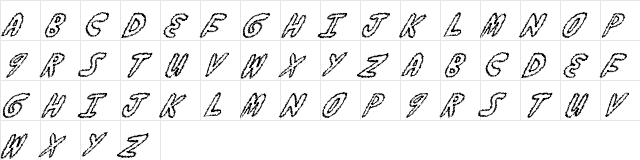
yumernub fuzzy Regular
Design Context for yumernub fuzzy Typeface
yumernub fuzzy is a composed and adaptable typeface that performs quietly and consistently across a wide range of design contexts.